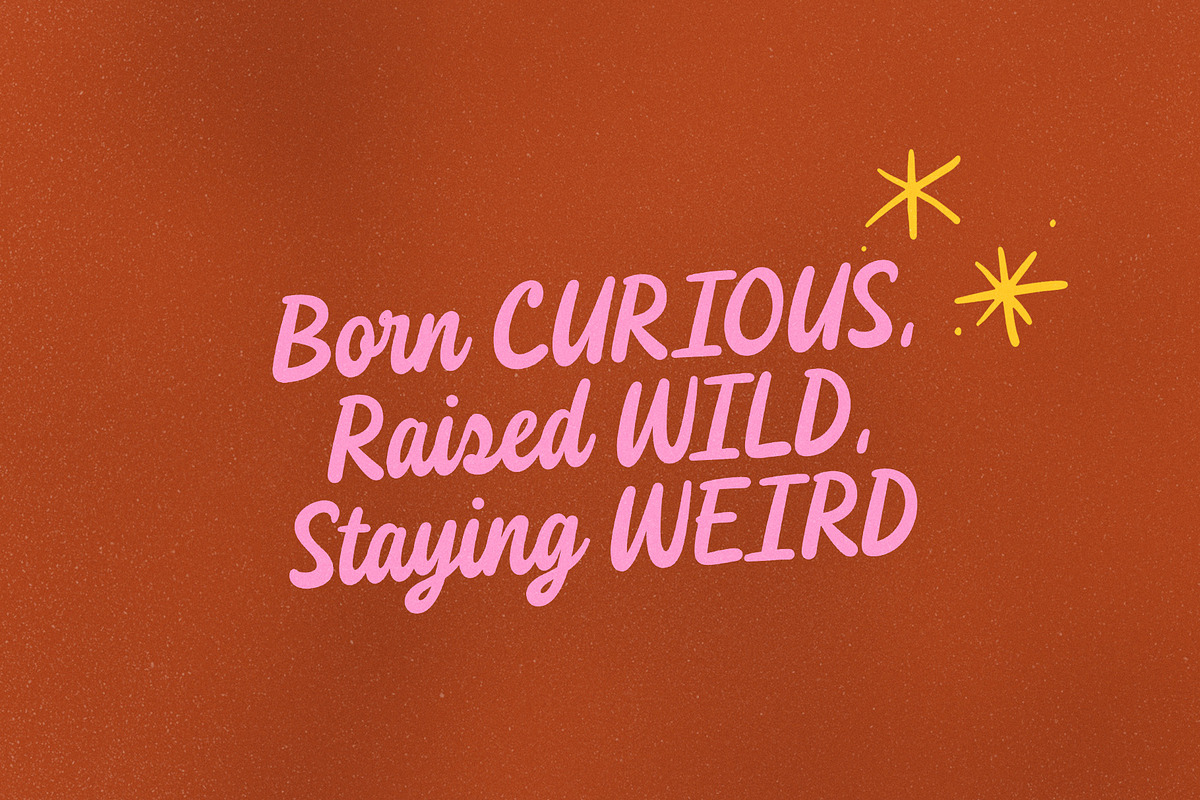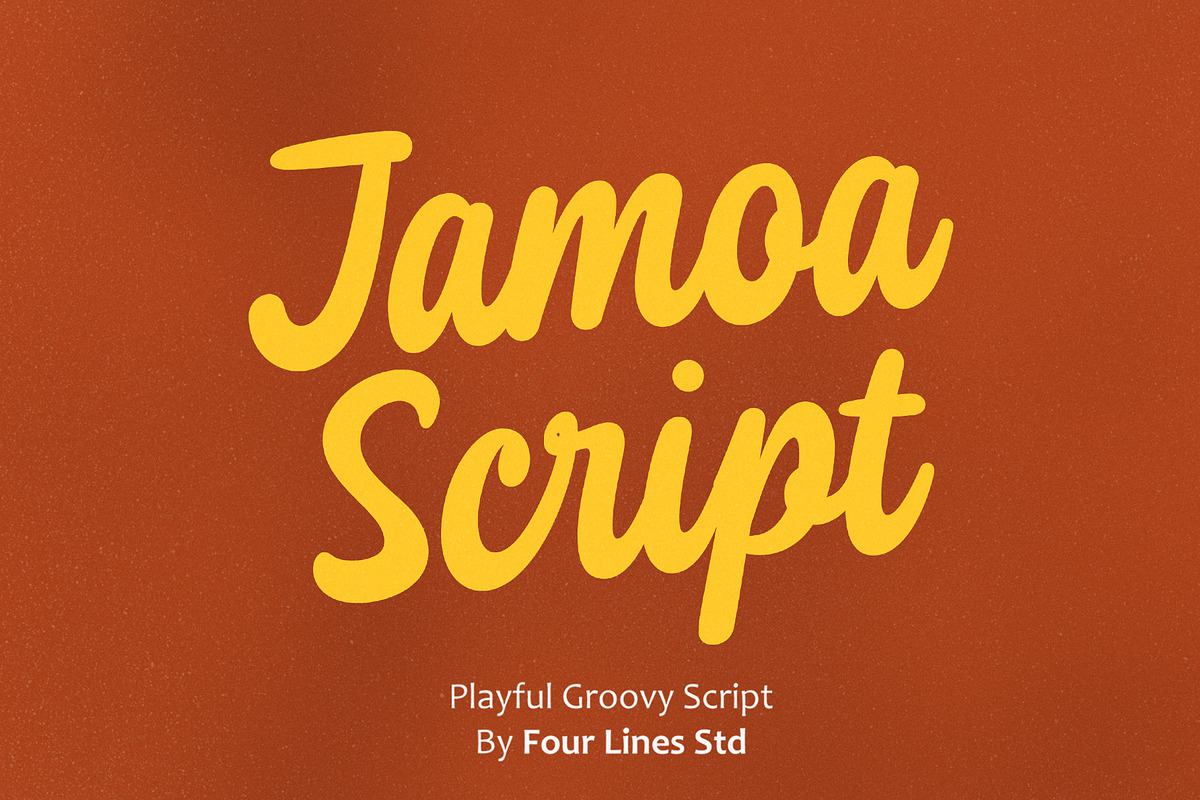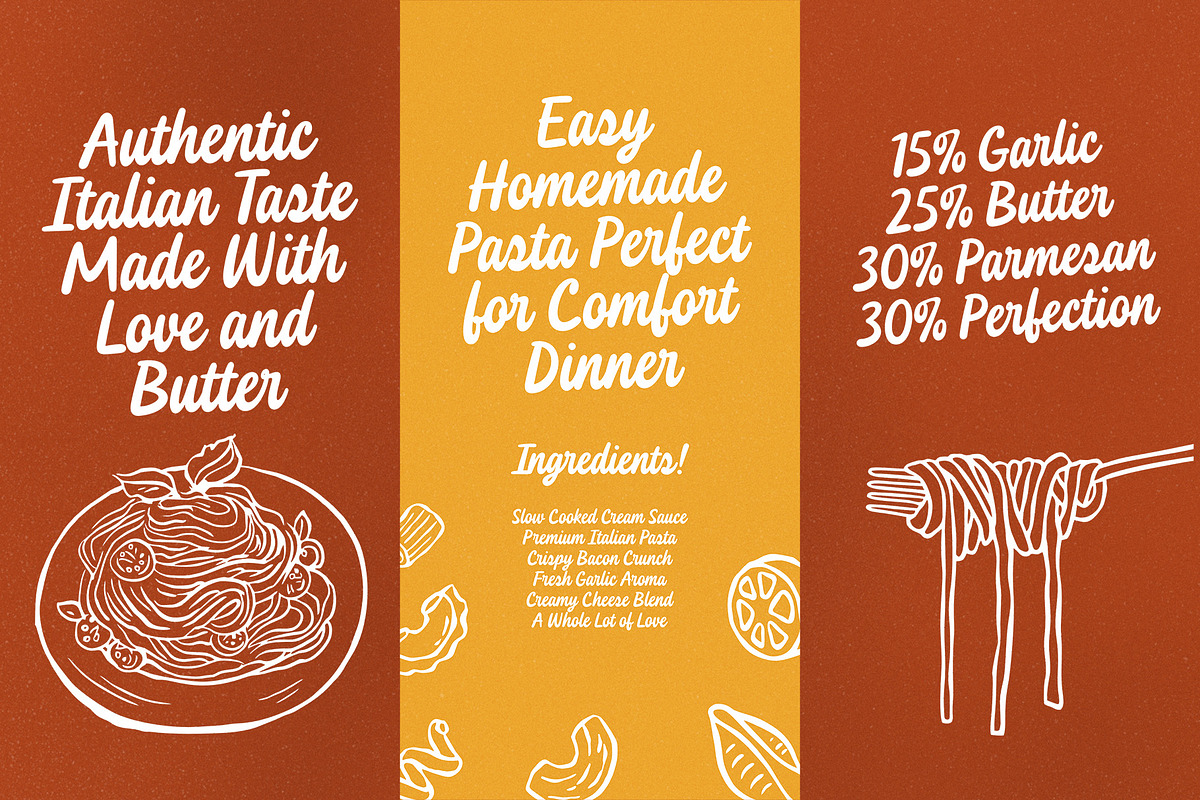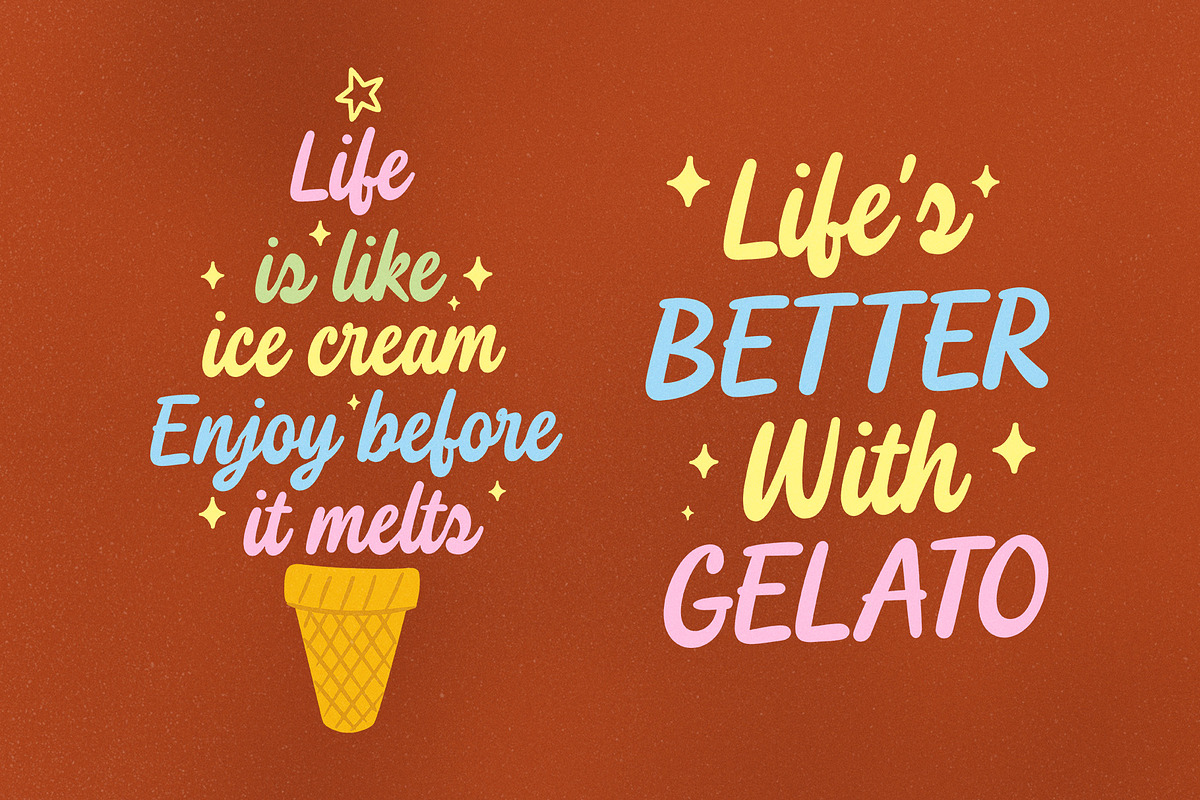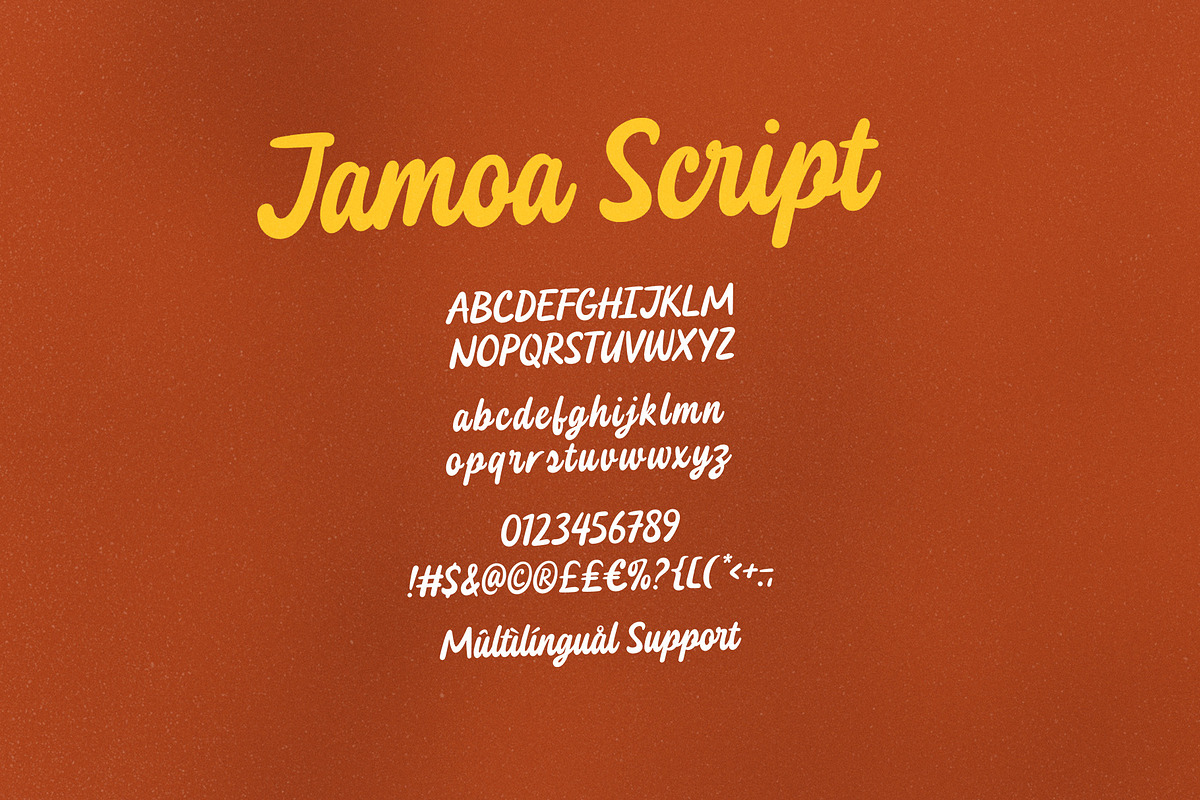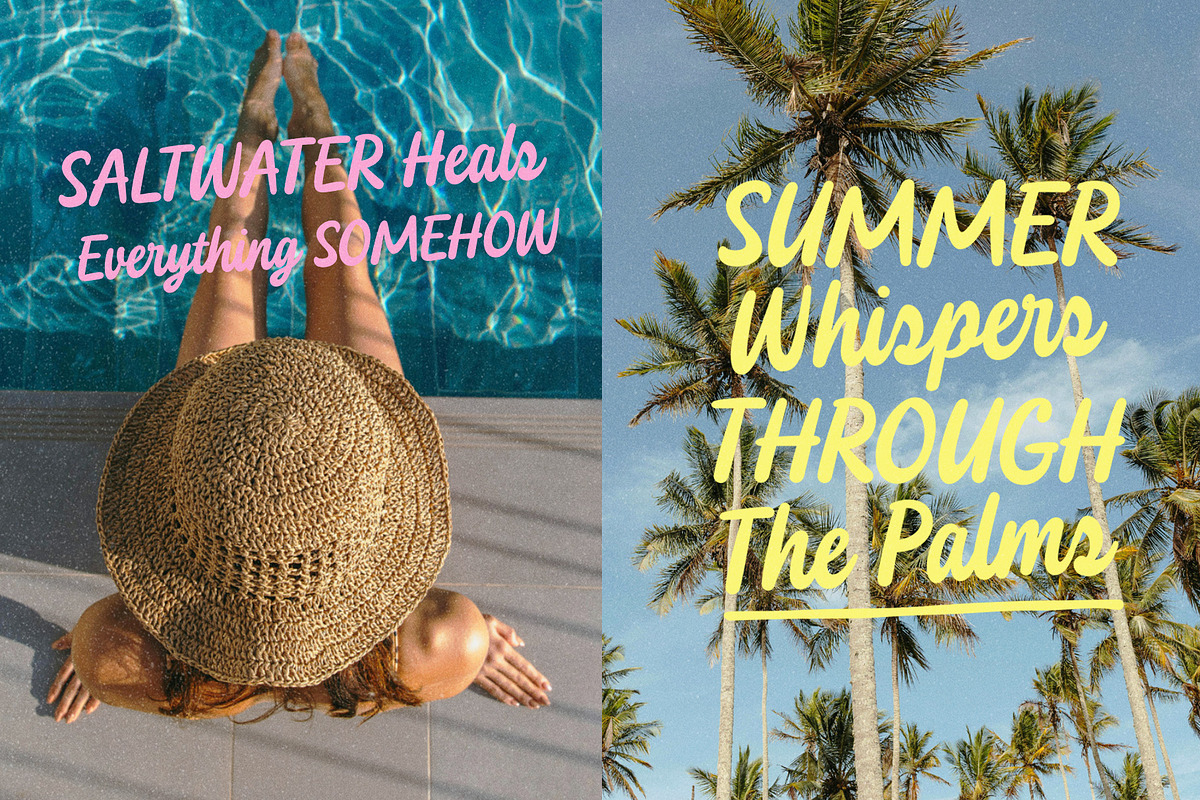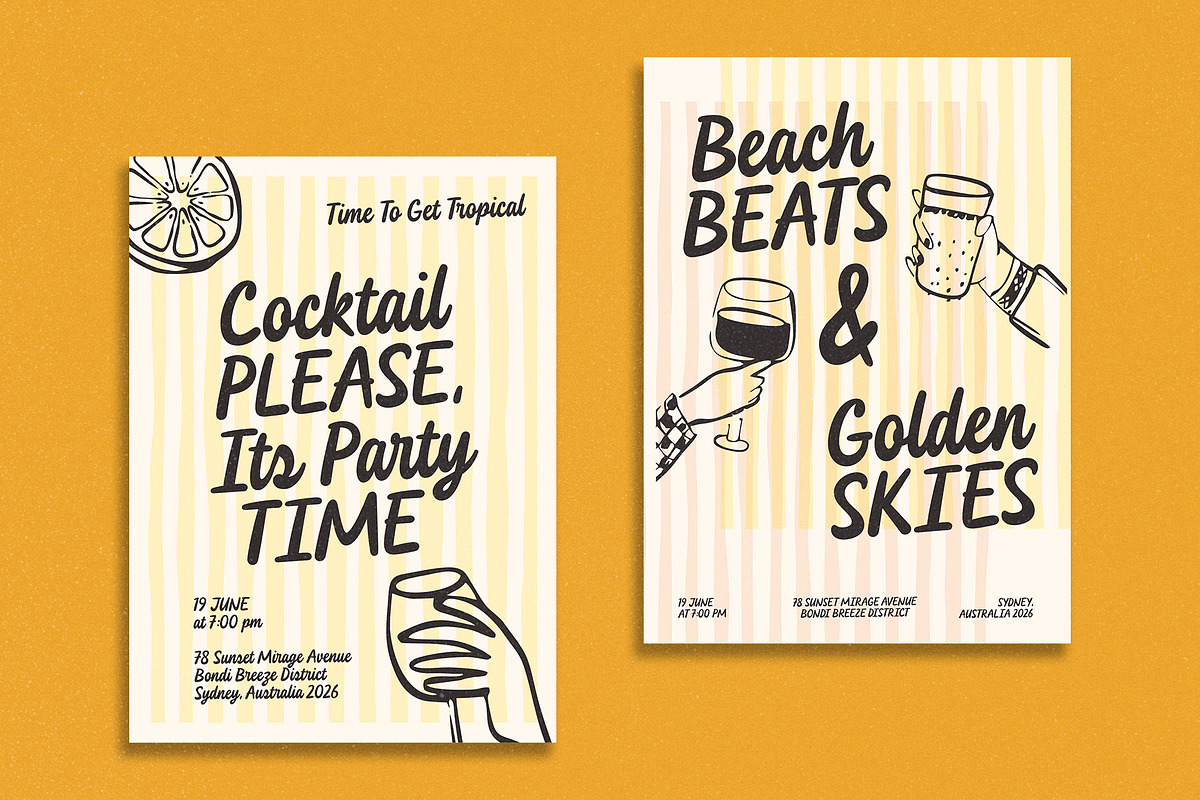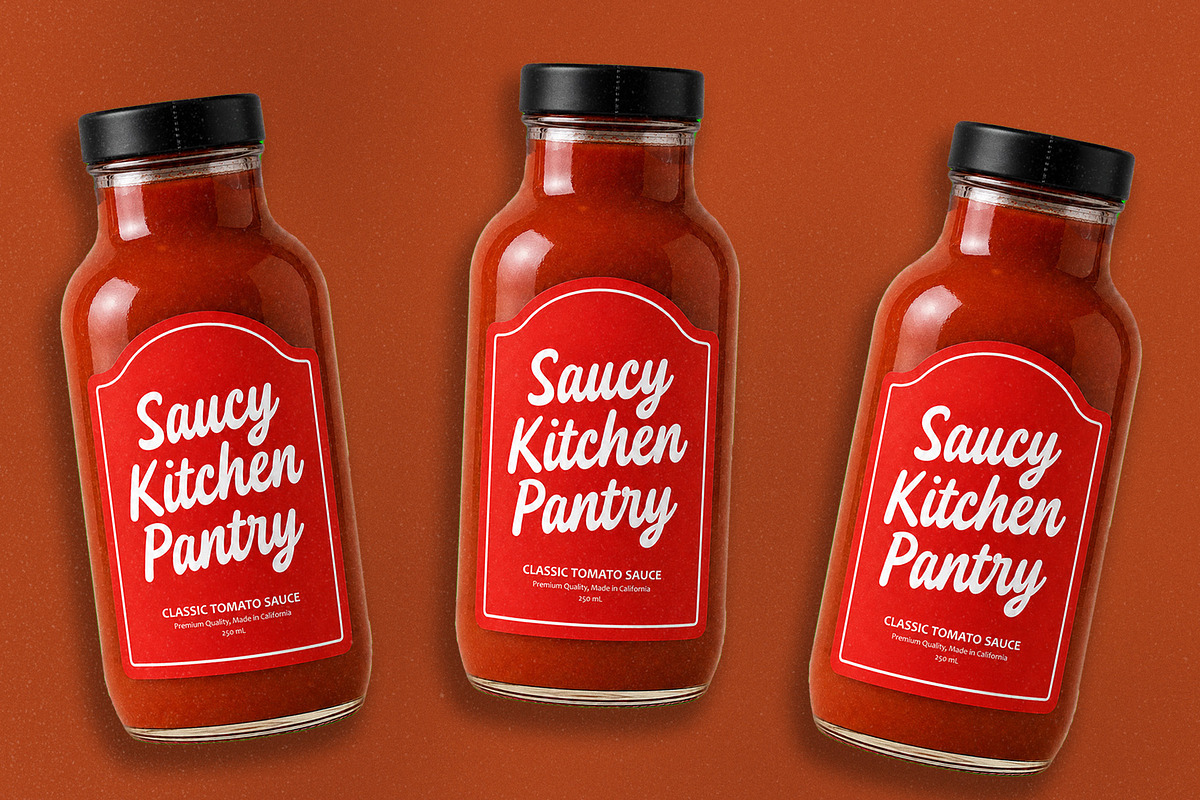
Jamoa Script – Playful Groovy Script
Jamoa Script is a playful groovy script font inspired by sunny summer vibes, retro cafés, beach parties, and warm handcrafted packaging. Featuring bold flowing letterforms with a natural and expressive rhythm, this font brings a lively, relaxed, and cheerful personality to every design.
Jamoa Script is perfect for food and beverage branding, posters, packaging, logos, tote bags, social media, and various lifestyle designs with a fun modern touch. It also comes with multilingual support, numbers, symbols, and smooth handwritten details that make every word feel more authentic and full of character.